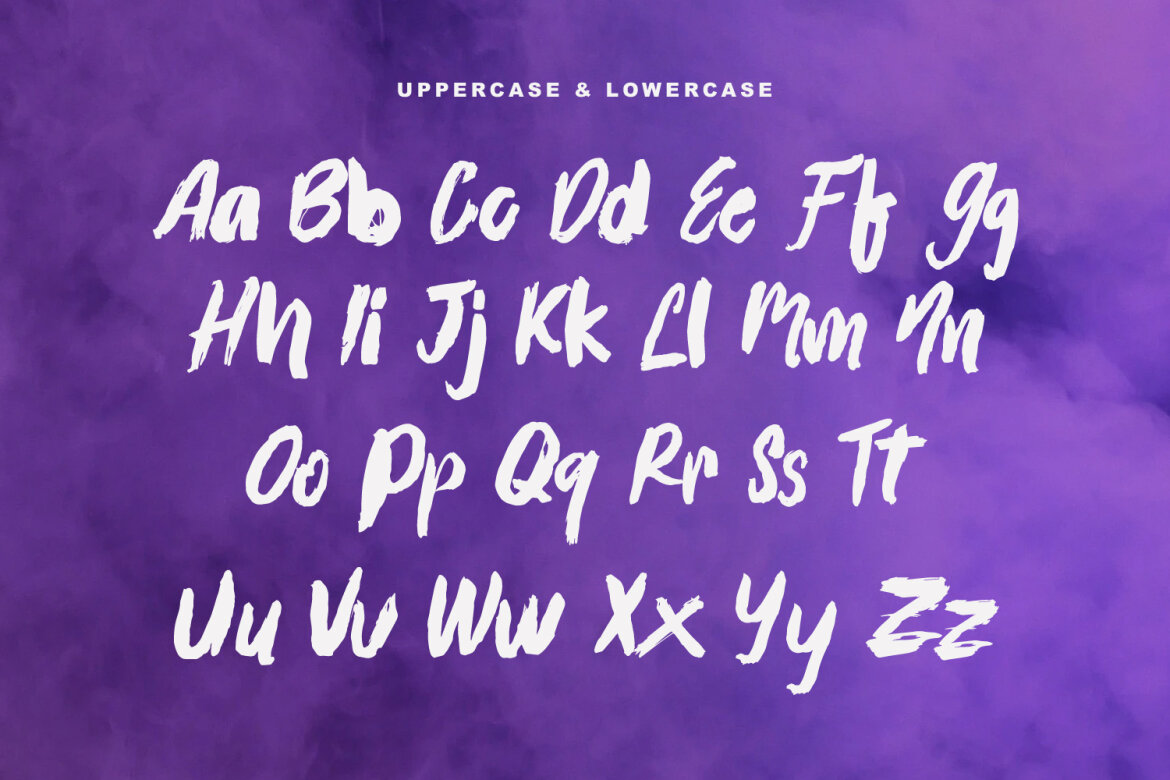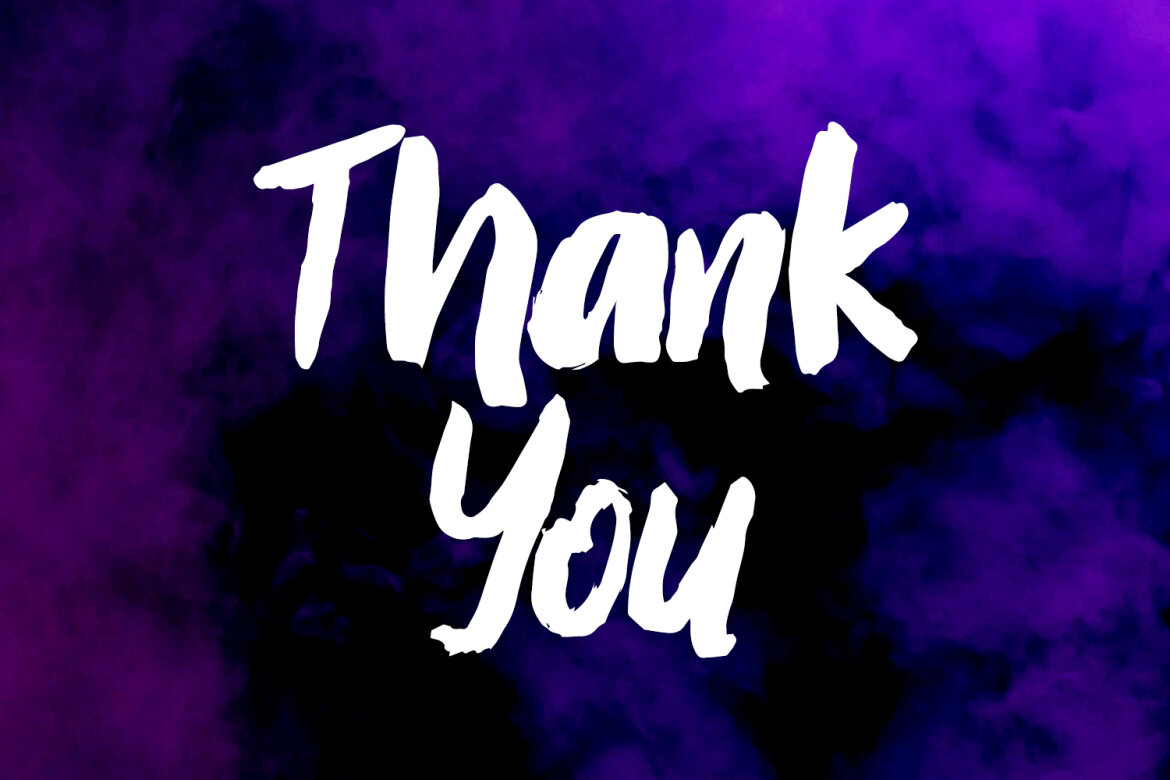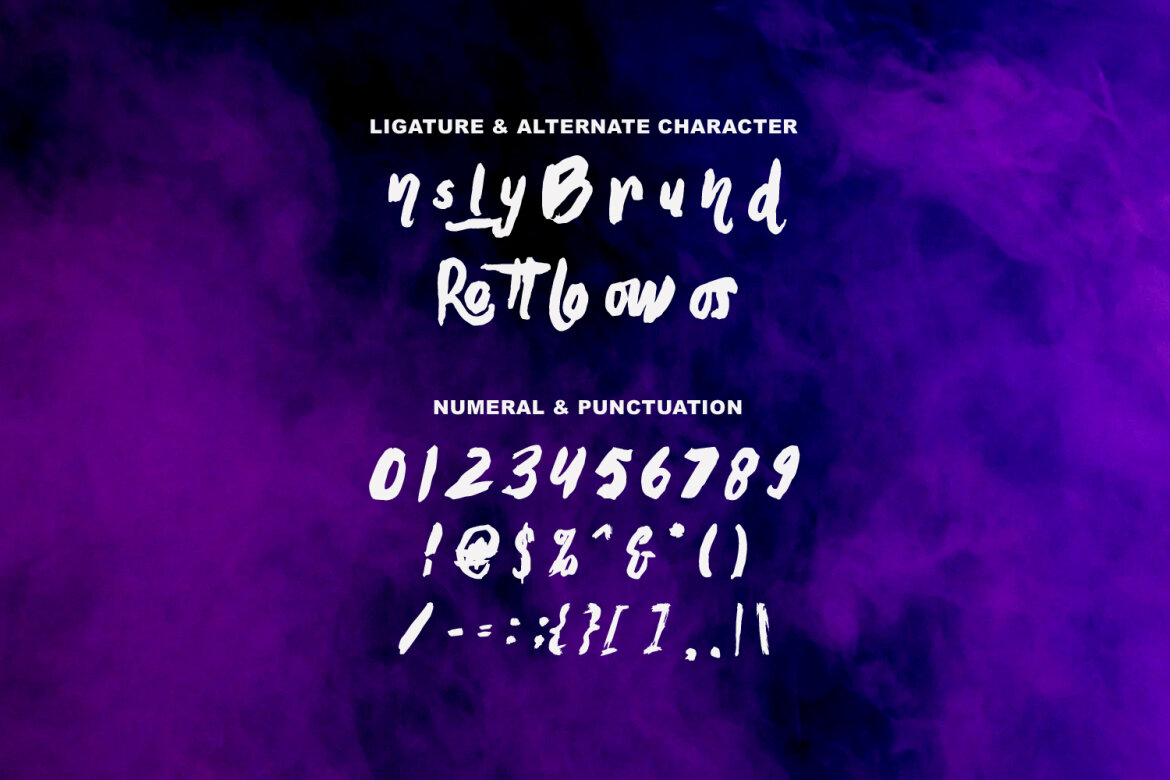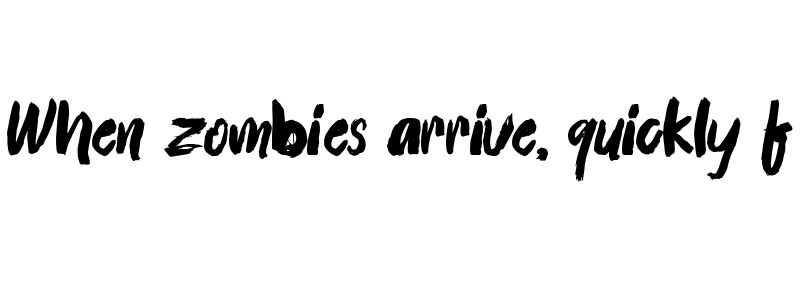
Ronttsly Brush FREE Font
Ronttsly script brush font. This font is good for logo design, Social media, Movie Titles, Books Titles, a short text even a long text letter and good for your secondary text font with signature or script typeface. Make a stunning work with Ronttsly script brush font.